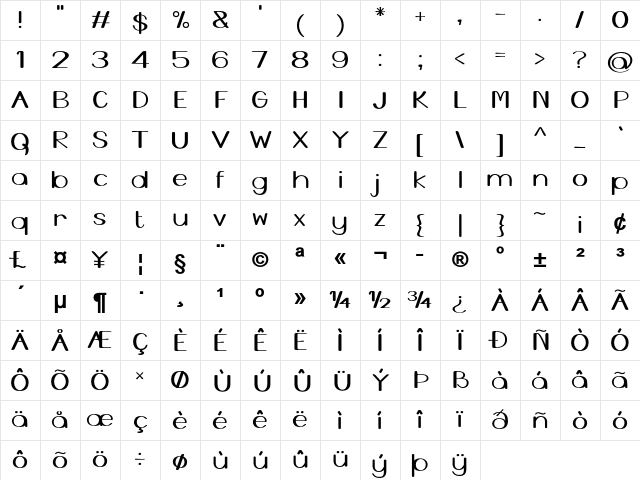
Tweedle Bold
Design Context for Tweedle
Tweedle is a composed and adaptable typeface that performs quietly and consistently across a wide range of design contexts. Its bold stroke weight gives it real presence on the page.